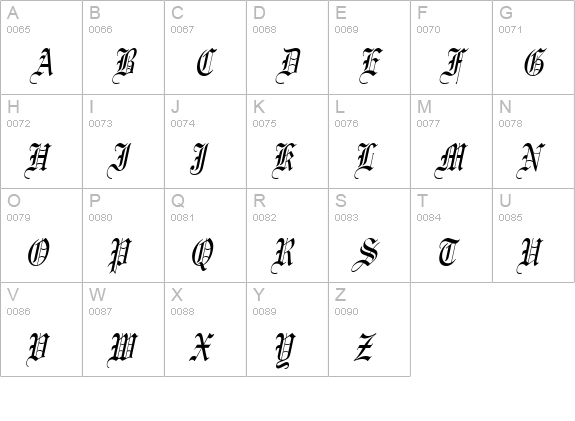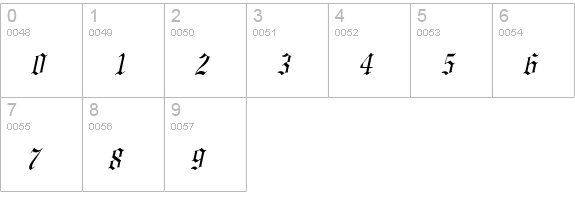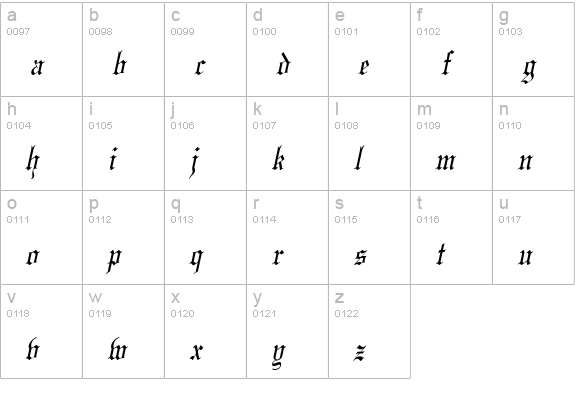
CertificateCondensed Italic is a distinctive, italic variant in the CertificateCondensed typeface family \xE2\x80\x94 well suited to design and typography projects.
CertificateCondensed Italic is a sophisticated and elegant font style perfect for adding a touch of class to your designs. With its slanted and condensed appearance, this font exudes a sense of formality and professionalism. The italicized letters give a sense of movement and elegance, making it ideal for formal invitations, certificates, and other important documents. What makes CertificateCondensed Italic even more appealing is that it is available for free download at FontsMarket.com. This means you can easily access this stylish font and use it in your projects without any cost. Whether you're designing a wedding invitation, a diploma, or a fancy event program, CertificateCondensed Italic will elevate your design and give it a polished and sophisticated look. Download this font today and add a touch of elegance to your creations!